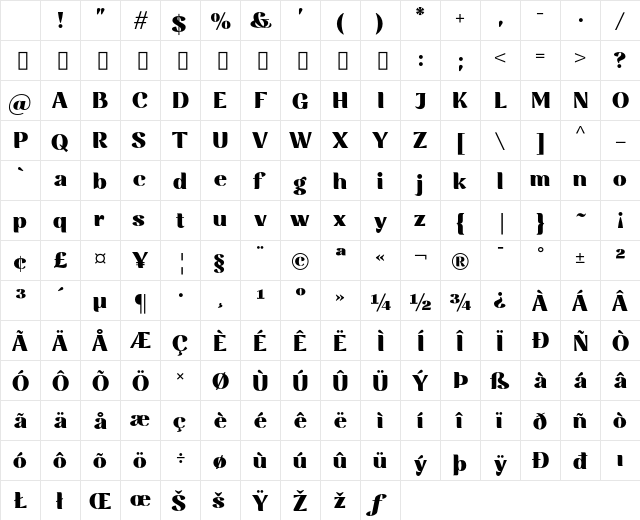
Complete Rossanova Personal Use Black glyph index. Displaying only characters natively supported by Rossanova Personal Use Black font.
Rossanova Personal Use is a composed and adaptable typeface that performs quietly and consistently across a wide range of design contexts.